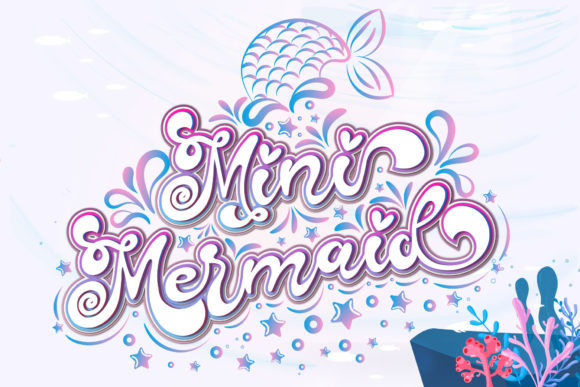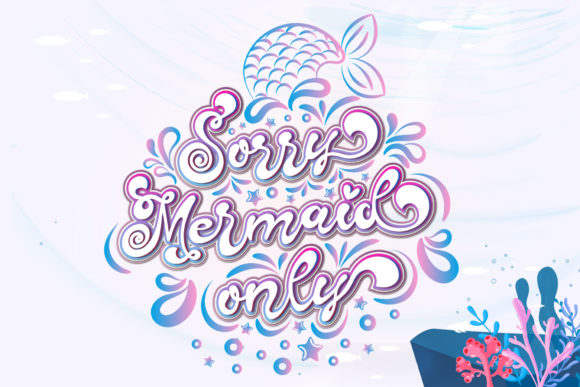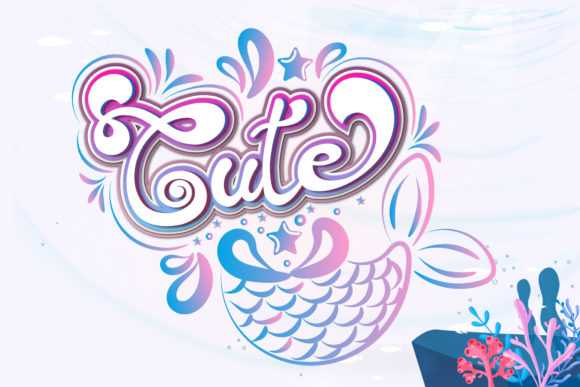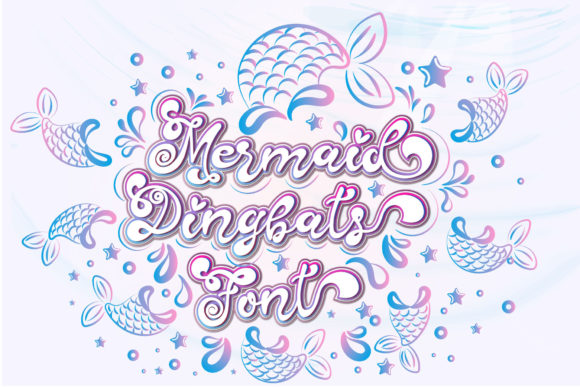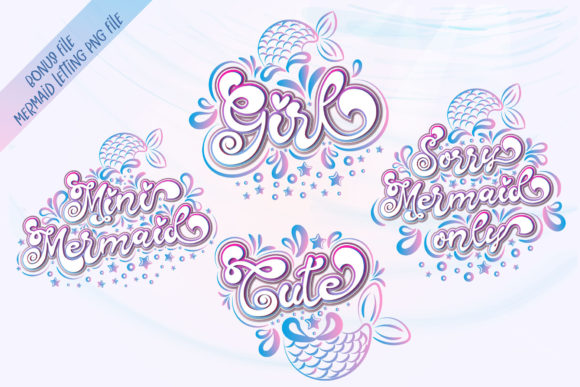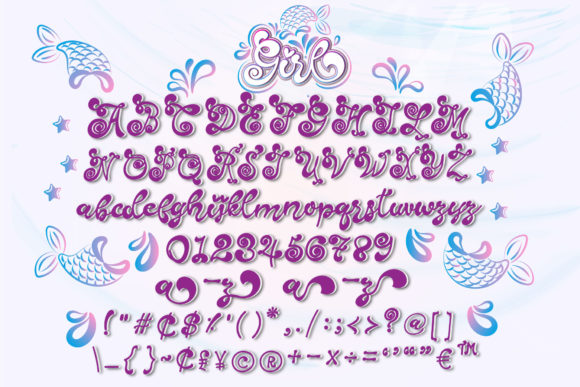
Discover the Elegance of Girl Font: Elevate Your Designs with Style
In the realm of typography, few fonts capture the essence of chic elegance and versatility as effectively as the Girl Font. This stunning duo font, comprising a script and dingbats, is not just a typographical choice but a design statement. With its intricate details, cool demeanor, and PUA encoding for effortless glyph and swash access, Girl Font is poised to revolutionize the way designers and crafters approach their creative projects.
The Allure of Girl Font
At first glance, Girl Font exudes a sense of sophistication and charm. Its script component is fluid and graceful, capable of conveying elegance and emotion through its sweeping curves and precise lines. The dingbats complement the script beautifully, offering a range of decorative elements that can enhance any design. Whether you’re crafting a logo, a greeting card, or a digital graphic, Girl Font provides the perfect blend of style and functionality.
PUA Encoding: The Key to Creative Freedom
One of the standout features of Girl Font is its PUA (Private Use Area) encoding. This technical advantage means that users can easily access all the glyphs and swashes without the need for complicated software or workarounds. PUA encoding unlocks a world of creative possibilities, allowing designers to experiment with a wide range of typographical elements seamlessly. This feature is particularly beneficial for professionals who need to deliver high-quality designs under tight deadlines.
The versatility of Girl Font is another reason it stands out in the crowded world of digital typography. This font duo can be used across various design projects, from branding and advertising to crafting and personal stationery. The script font can add a touch of elegance to wedding invitations, while the dingbats can bring a playful element to children’s party invitations. The adaptability of Girl Font makes it an indispensable tool in any designer’s or crafter’s toolkit.
Creating Spectacular Designs with Girl Font
So, how can you leverage Girl Font to create spectacular designs? Here are a few ideas:
- Branding and Logos: Use the script component of Girl Font to create elegant and memorable logos. The unique swashes and glyphs can help your brand stand out.
- Stationery and Invitations: Add a touch of sophistication to your stationery, wedding invitations, or event cards with the beautiful script and decorative dingbats.
- Digital Graphics: Incorporate Girl Font into your digital graphics, such as social media posts or website headers, to give them a stylish edge.
- Crafting Projects: If you’re into crafting, Girl Font can elevate your project titles, labels, and descriptions, making your handmade goods more appealing.
Girl Font is more than just a font; it’s a design companion that can help you bring your creative visions to life. Its combination of elegance, detail, and versatility, coupled with the practical benefits of PUA encoding, makes it an excellent choice for designers and crafters alike. Whether you’re looking to add a touch of sophistication to your branding, create eye-catching invitations, or simply explore new typographical possibilities, Girl Font is your go-to solution. Embrace the beauty and functionality of Girl Font, and watch your designs transform into spectacular works of art.